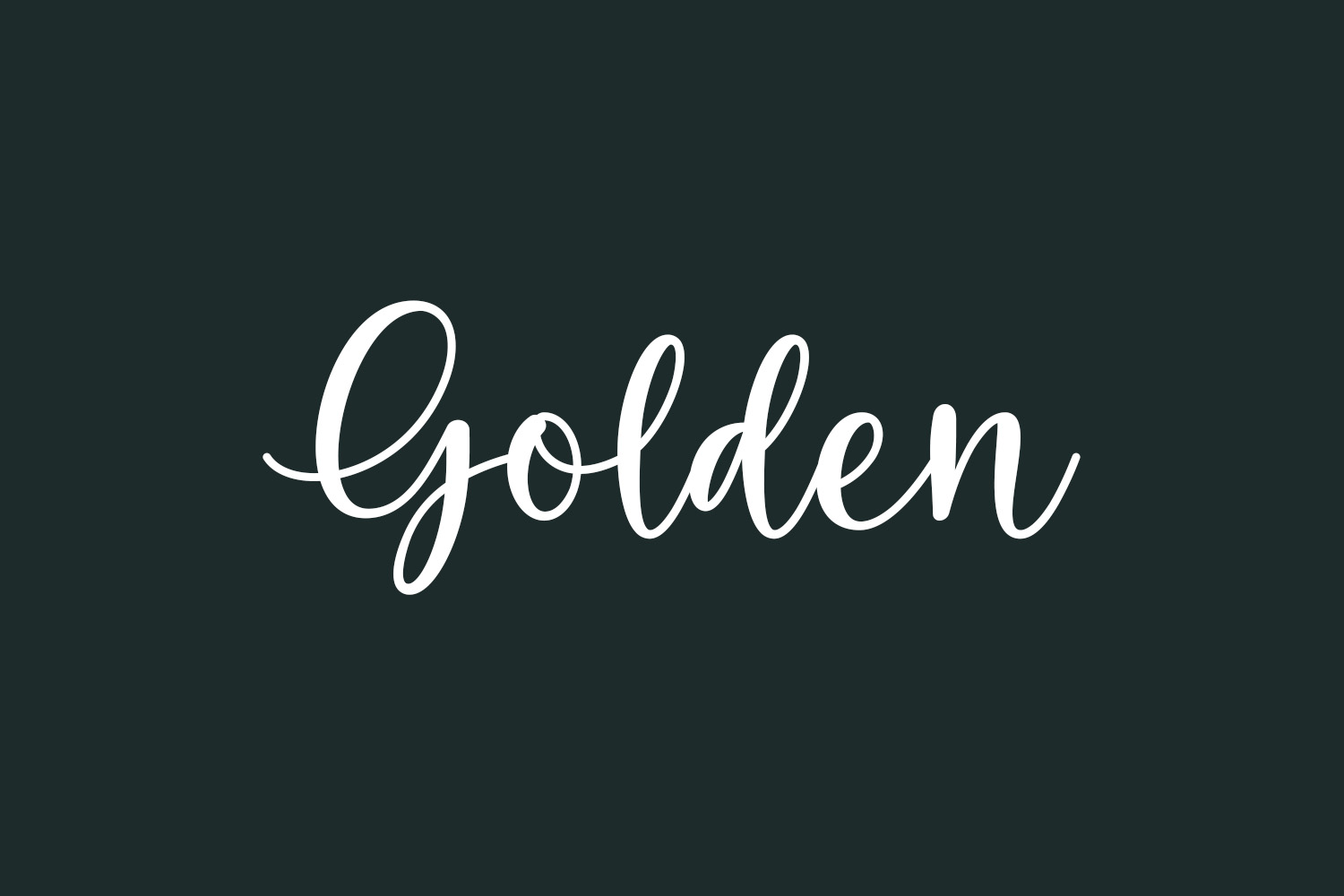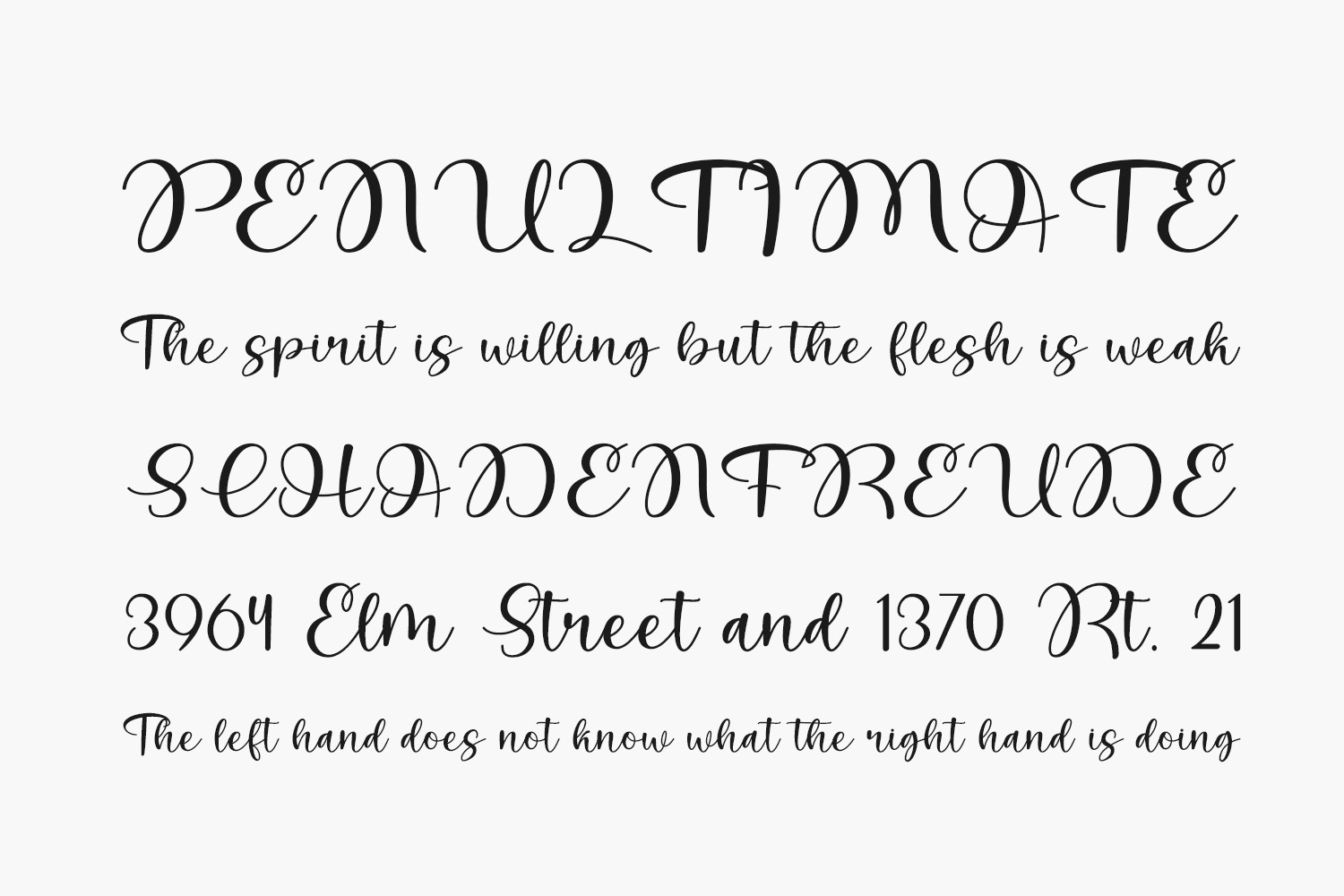
Golden Free Font exudes both charm and elegance, making it a perfect choice for various designs. Whether it’s wedding invitations, thank-you cards, quotes, greeting cards, logos, business cards, or any project in need of a handwritten touch, this font adds a stunning and sophisticated flair. Golden Free Font was designed by Wahyu Studio and is free for personal use only. Please purchase the full version for commercial use.